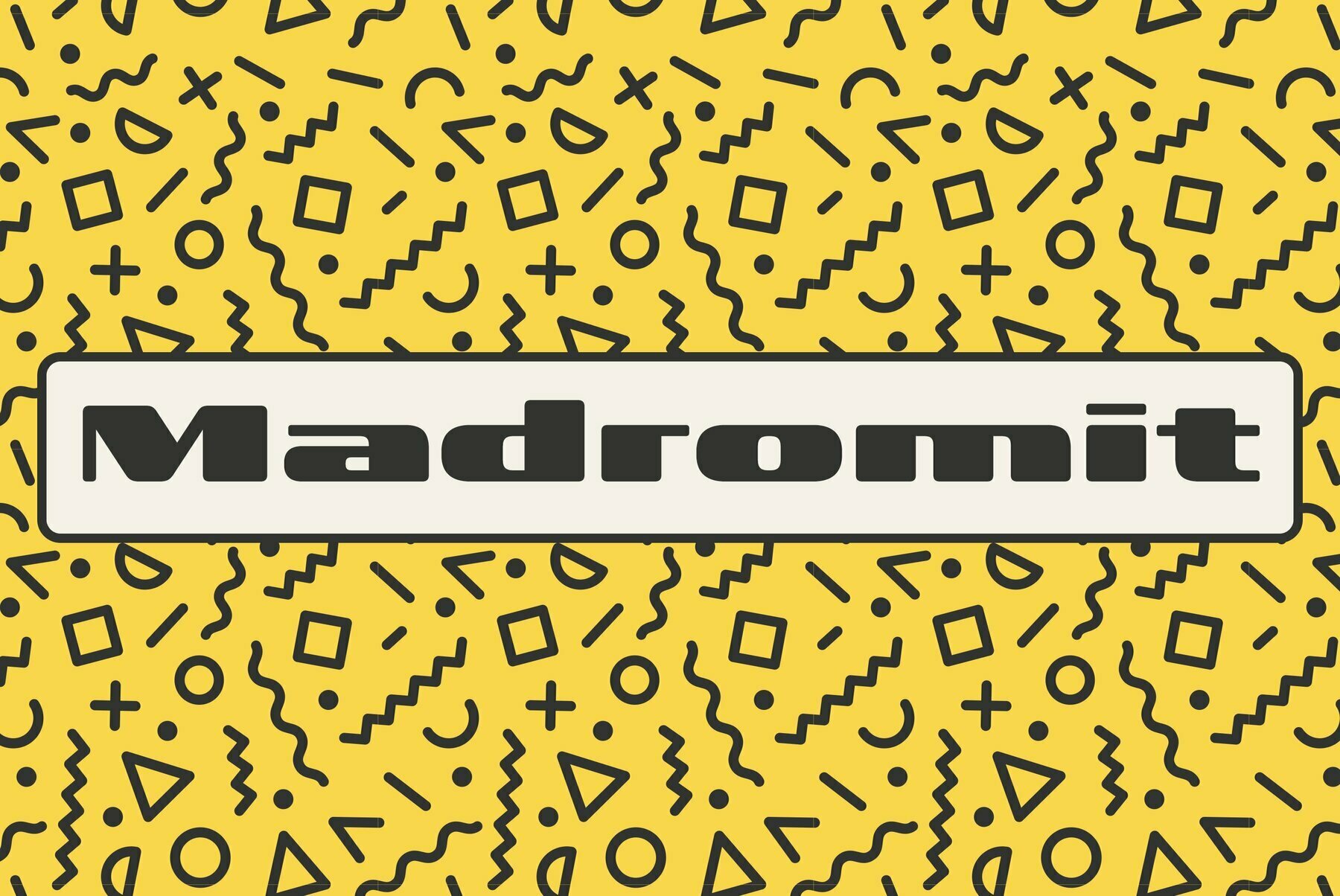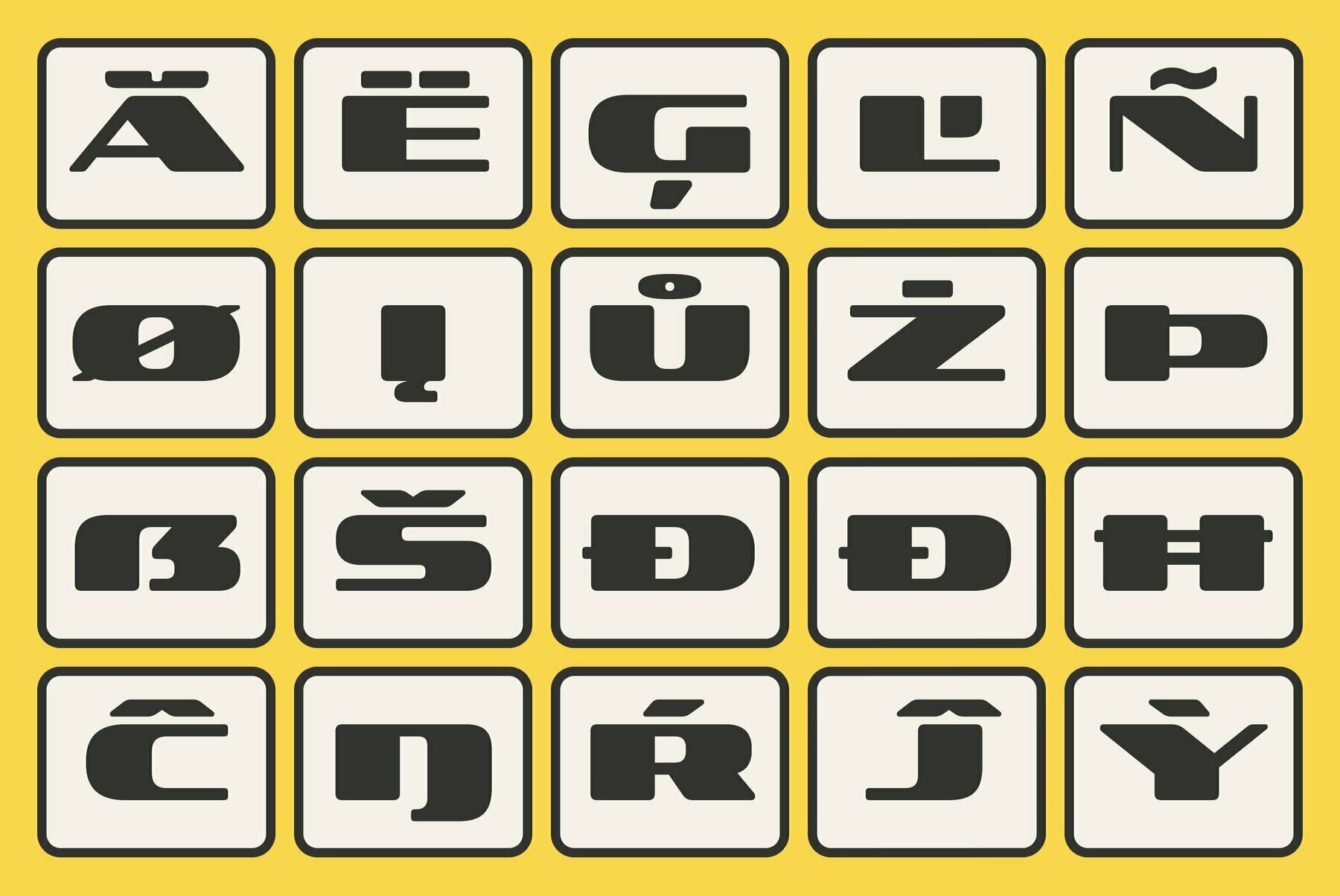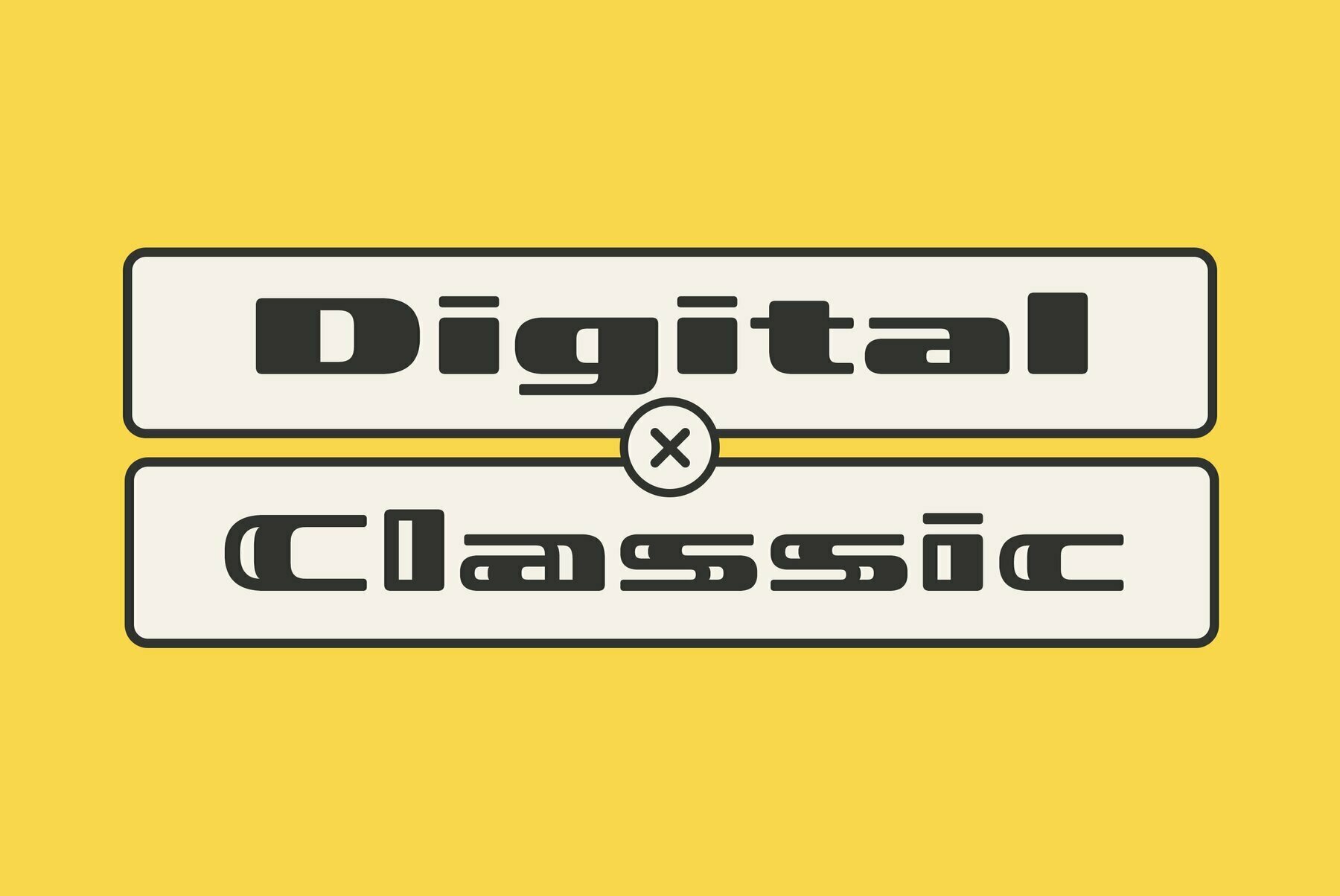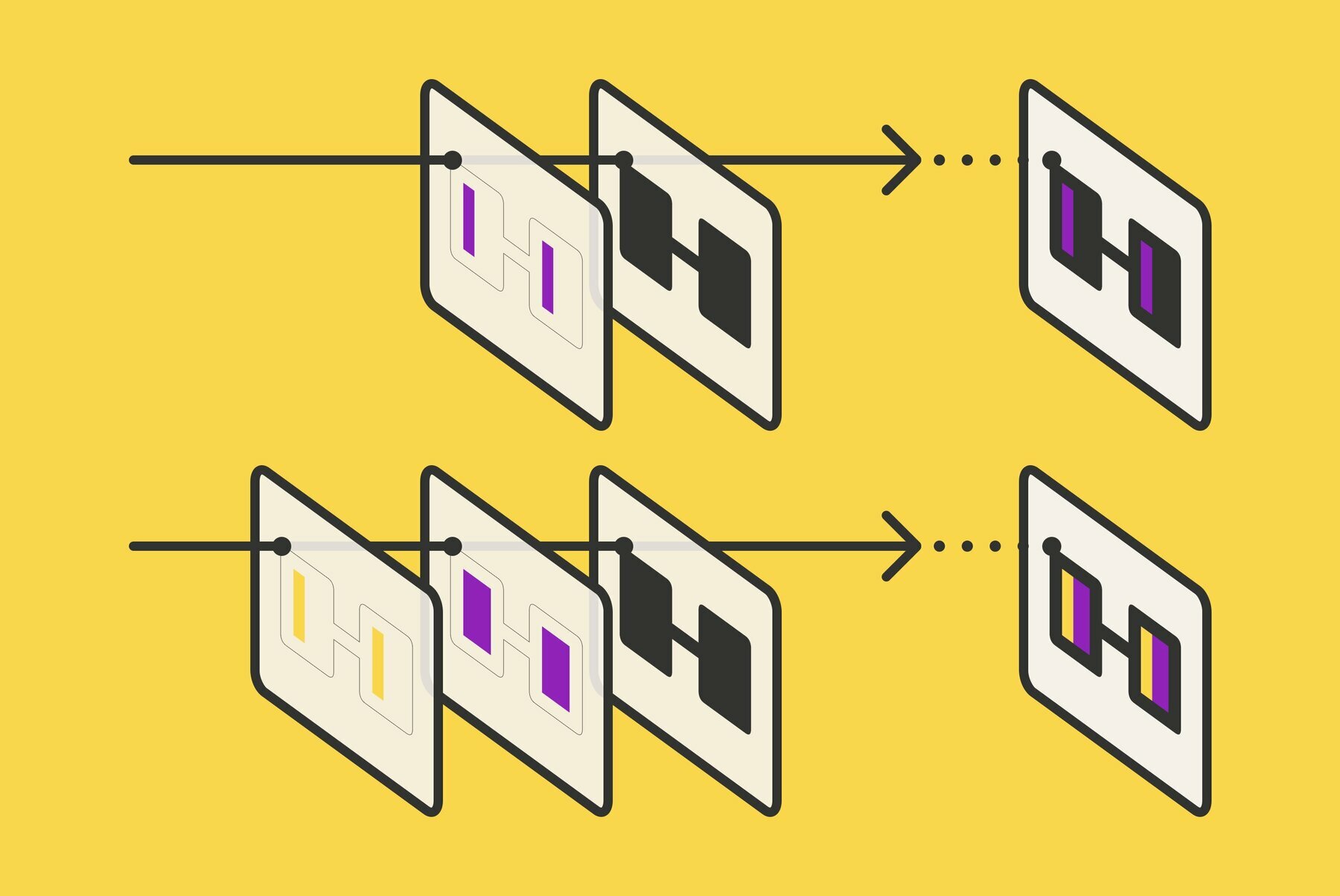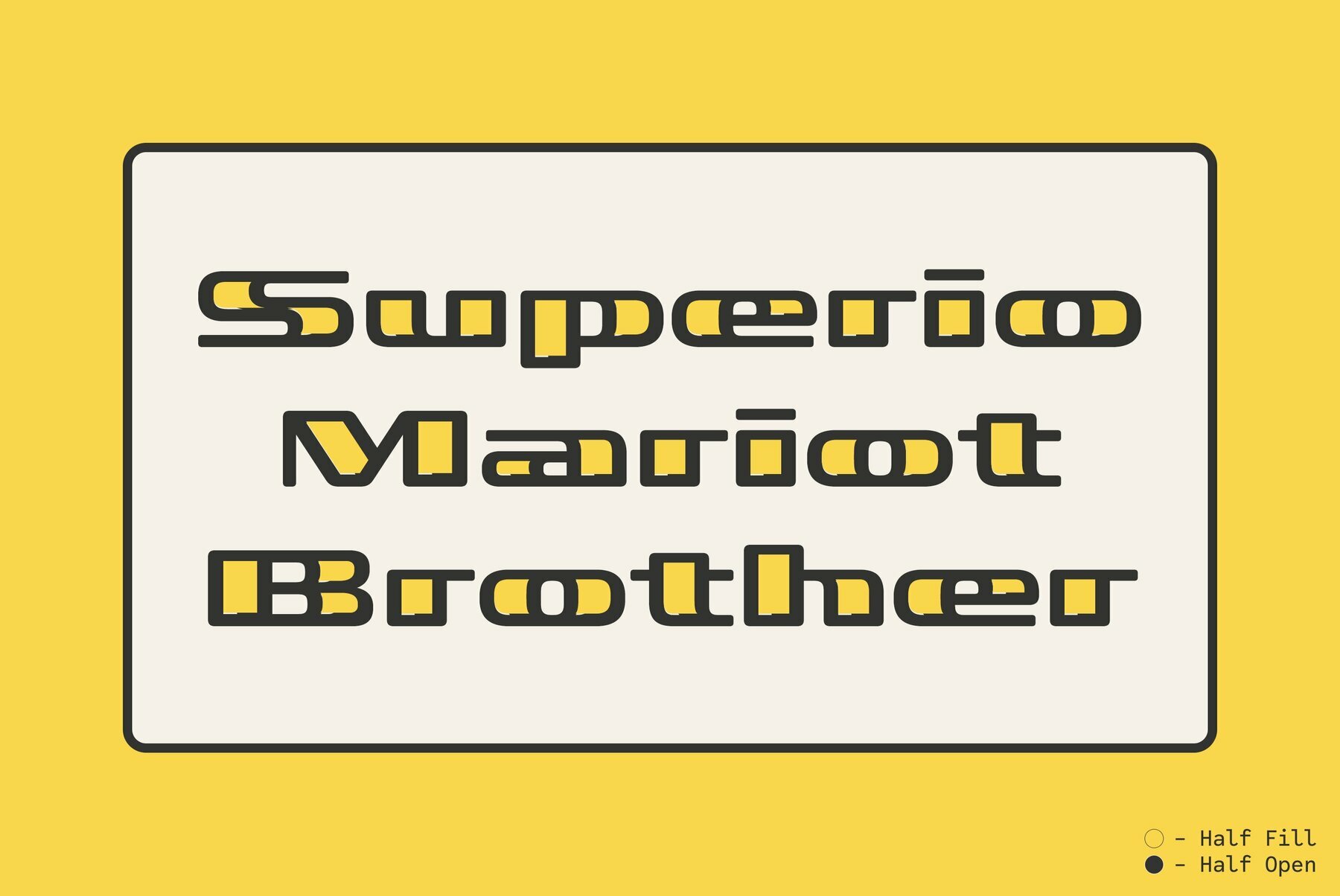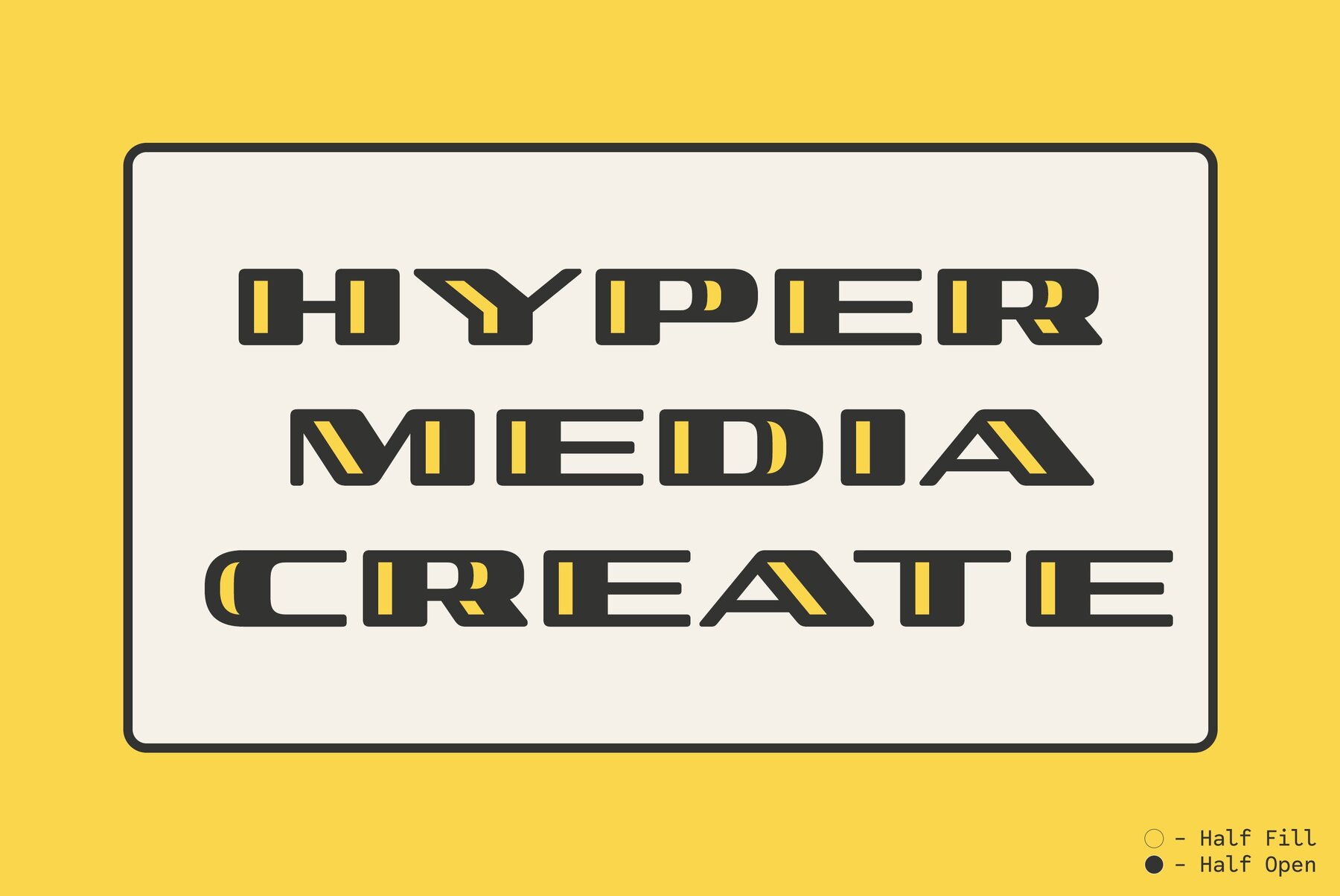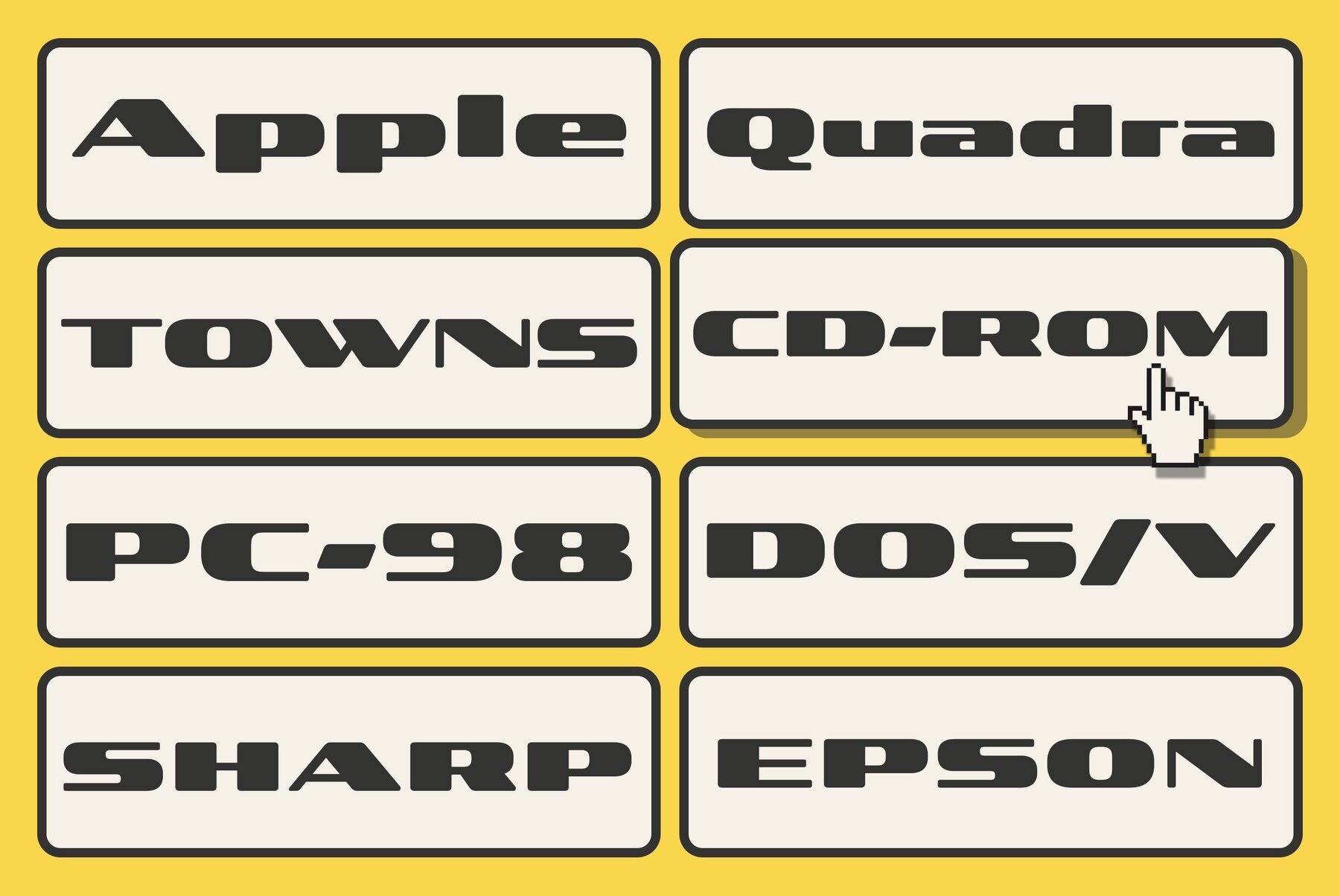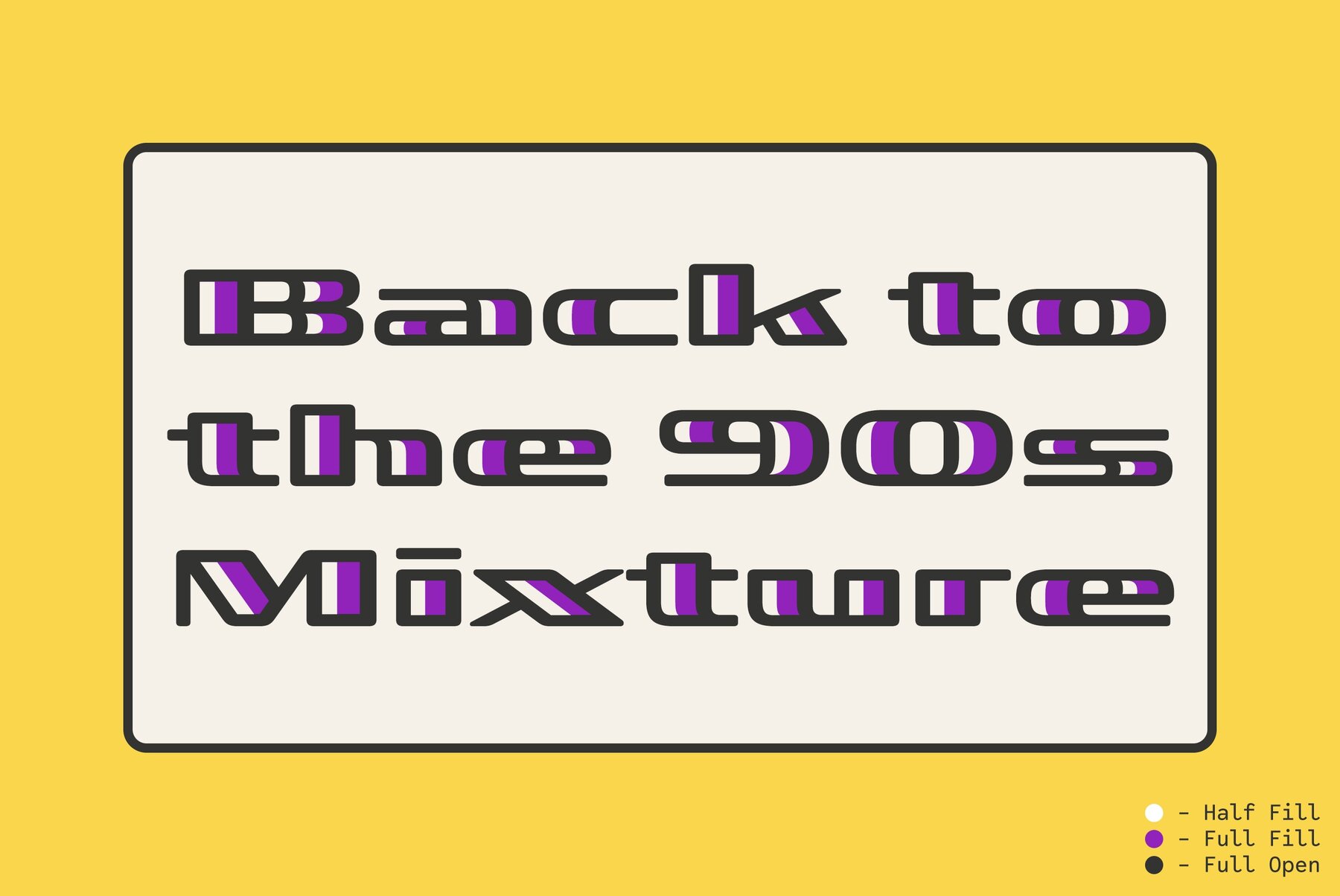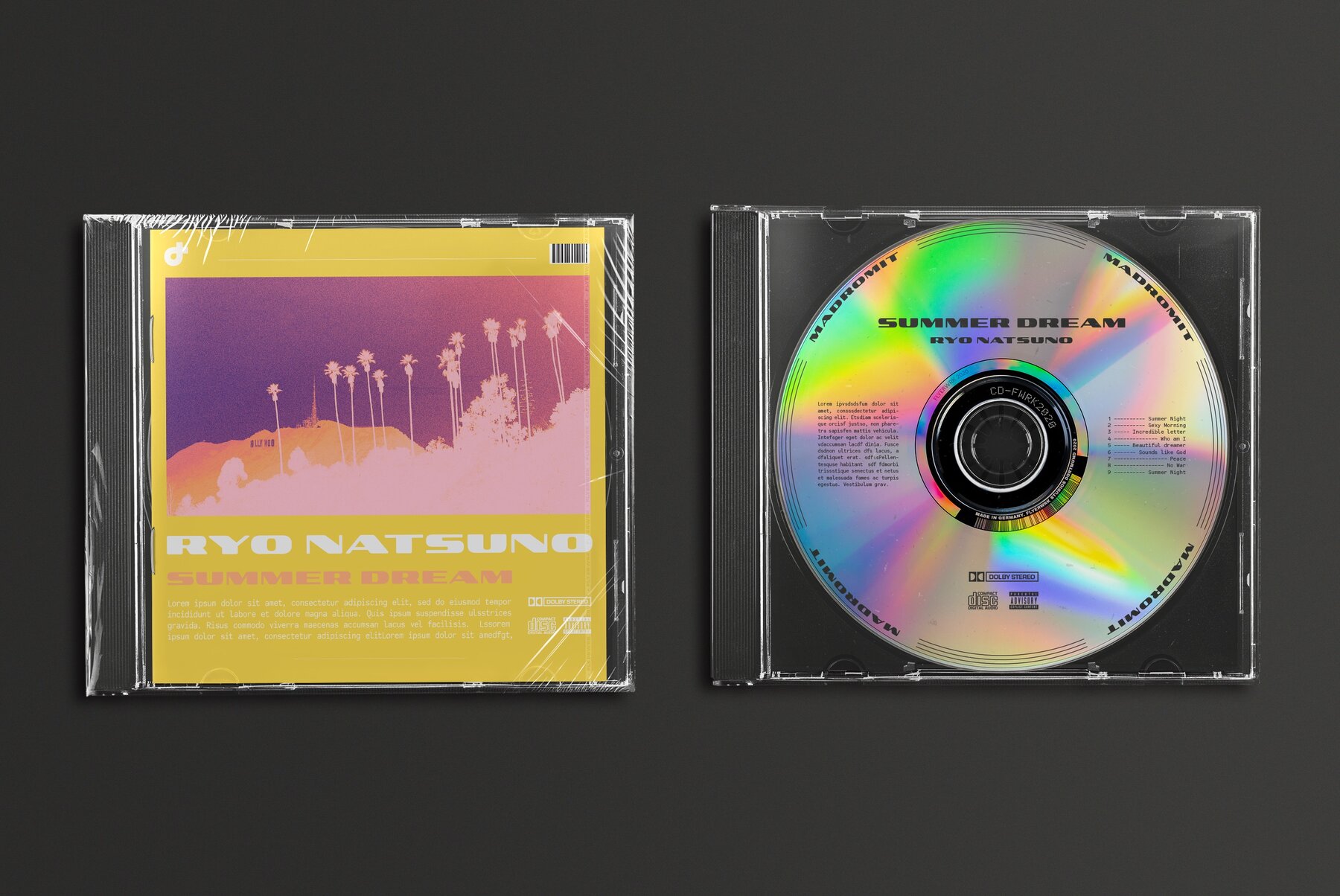
Madromit is a nostalgic display font inspired by the iconic computer advertisements of the 80s and 90s, a time celebrated for what is fondly called Primitive Digital Design. Featuring geometric shapes, rounded corners, oval bowls, and right-angled joints, Madromit embodies the simplicity and charm characteristic of that era's digital typography. This font offers a unique blend by incorporating an Open Style classic engraving method, adding decorative flair to its primitive roots.
The Madromit font family includes five styles designed for stacking color fonts, perfect for layered compositions in graphic design software like Photoshop or Illustrator. Each layer works as a standalone piece or can be stacked, allowing you to creatively play with colors and styles. Start with the Madromit Standard style and overlay it with "Fill" layers to achieve the desired open effect. The standalone styles—Madromit Standard, Half Open, and Full Open—provide versatility in your typographic projects.
To use Madromit, type your text and select the "Standard" style. Choose a color for the "Standard" layer, then duplicate it to create a "Fill" layer. Adjust the "Fill" layers using the "Half Fill" or "Full Fill" styles with new colors to complete your design. This font family invites a fresh look at digital typefaces, merging past and present typographic artistry.